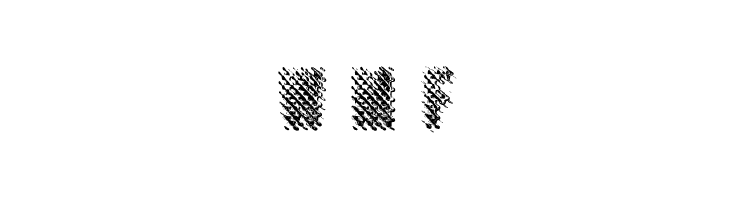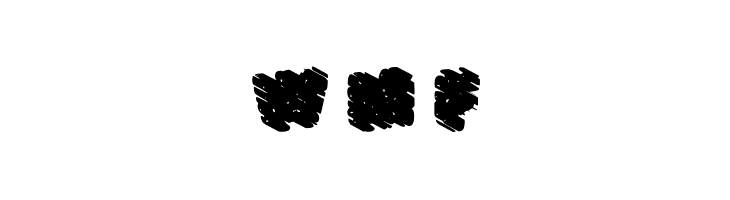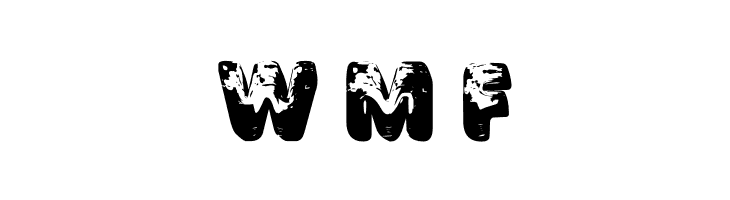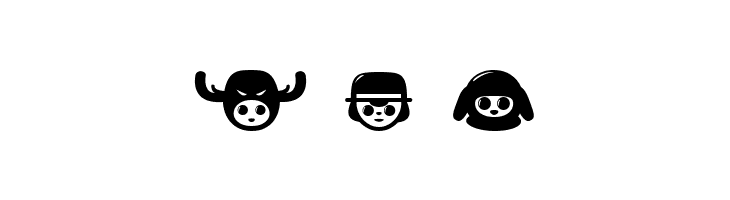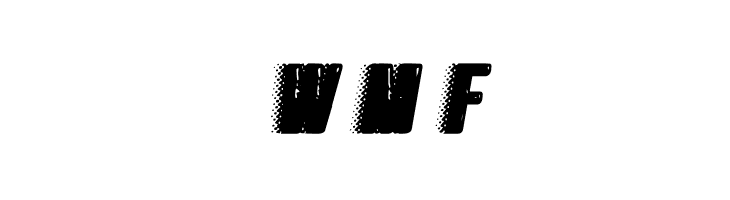
( Fonts by Billy Argel Fonts ® )
A bold, textured font with a dynamic, brush-like appearance.
( Fonts by Billy Argel Fonts ® )
A bold, textured font with intricate patterns and a striking, artistic style.
( Fonts by Billy Argel Fonts ® )
A bold, textured font with a playful, artistic style.
( Fonts by Billy Argel Fonts ® )
A bold, space-themed decorative font with playful star and planet motifs.
( Fonts by dcoxy )
A playful, bone-themed font perfect for spooky designs.
( Fonts by dcoxy )
A whimsical, stick-like font with a rustic, hand-drawn appearance.
( Fonts by Billy Argel Fonts ® )
A bold, distressed, and decorative font with a vintage, three-dimensional look.
( Fonts by dcoxy )
An intricate decorative font with vintage-inspired ornamental designs.
( Fonts by dcoxy )
Cartoon character face dingbat font with bold, playful designs.
( Fonts by Billy Argel Fonts ® )
A bold, italic font with a halftone texture and dynamic style.